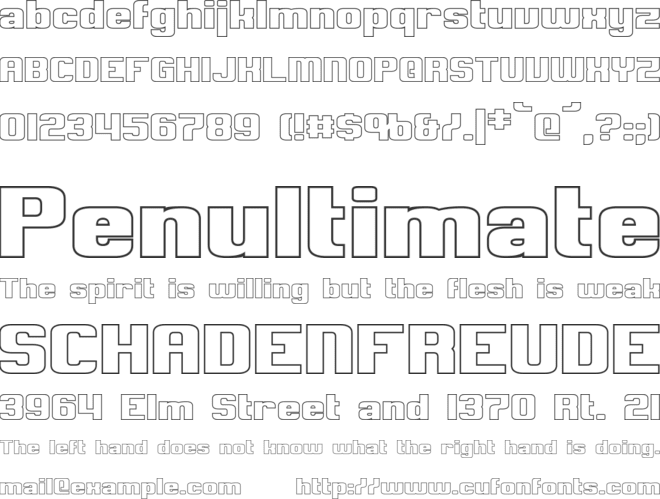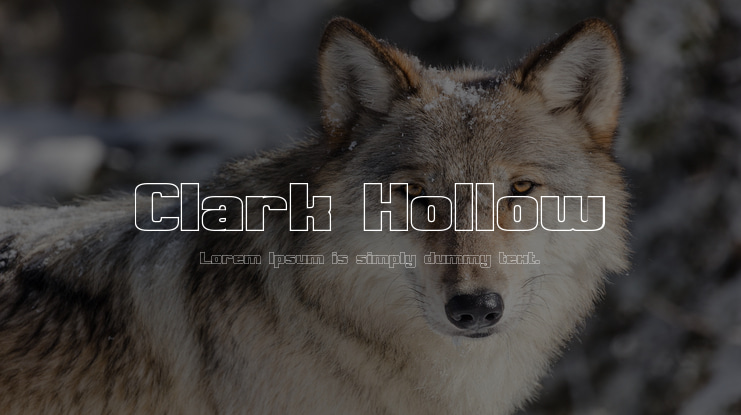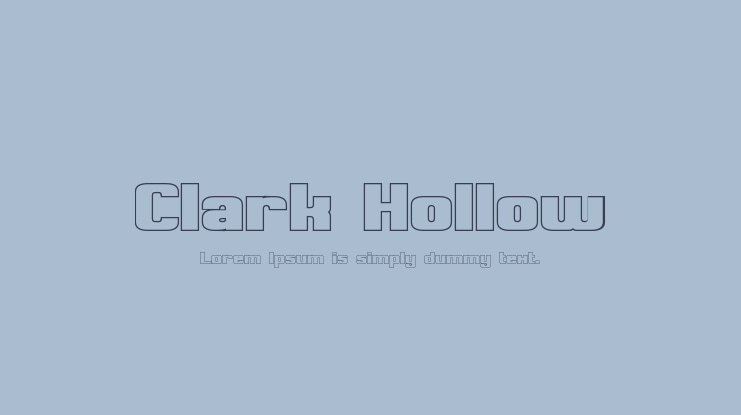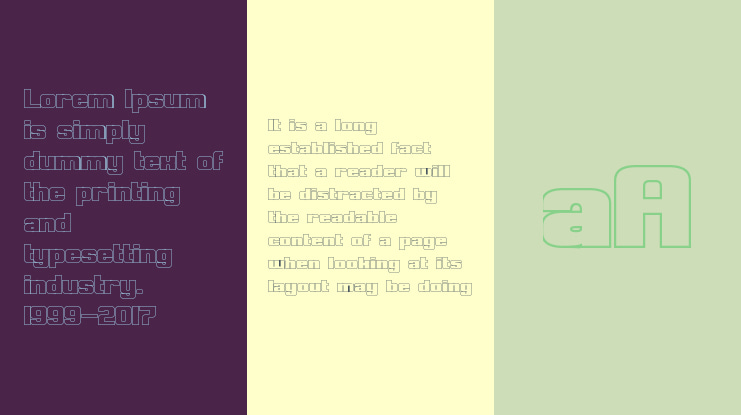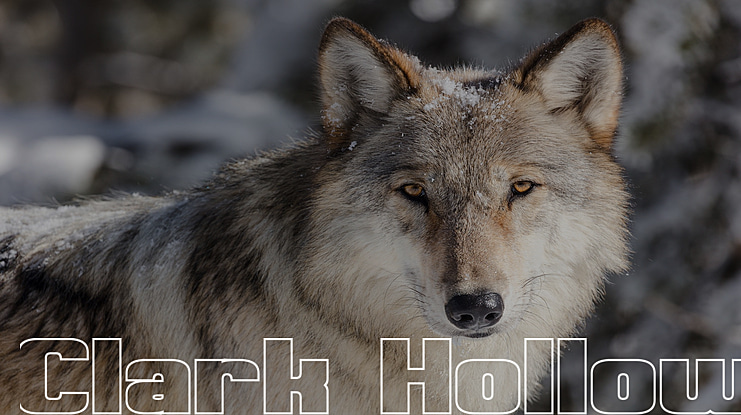
Clark Hollow Font Family
Neale Davidson
Clark is a smooth, bold, non-angular, largely uniform art-deco typeface designed to invoke a bit of a science-fiction feel. Includes full alphabet, extended character set, euro. Includes bold, italic, bold-italic, and hollow weights in all of the above.